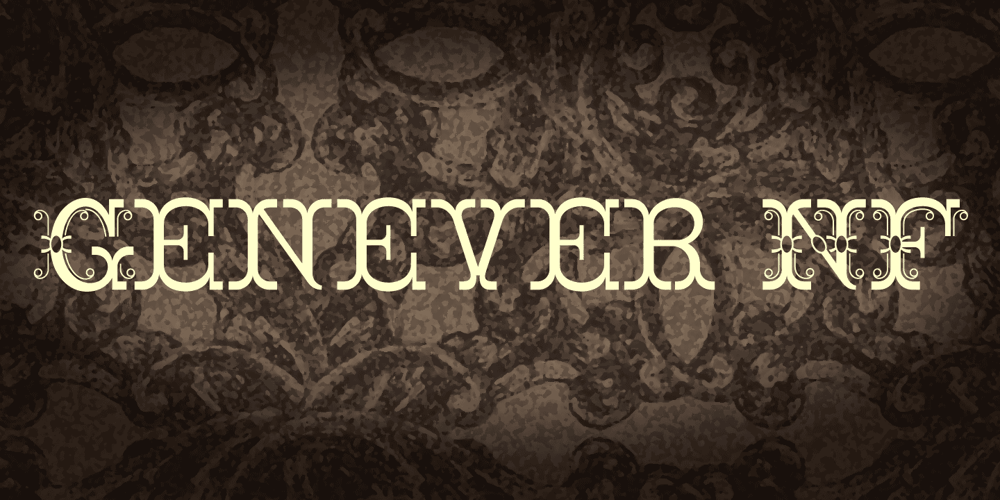
Genever NF
Genever NF Font Family was designed by Nick Curtis and published by Nick’s Fonts. Genever NF contains 1 styles and family package options. London’s Reed and Fox 1874 specimen book featured two faces, Viennese and Corinthian, combined here in one elegant decorative face. Both versions support the Latin 1252, Central European 1250, Turkish 1254 and Baltic 1257 codepages.